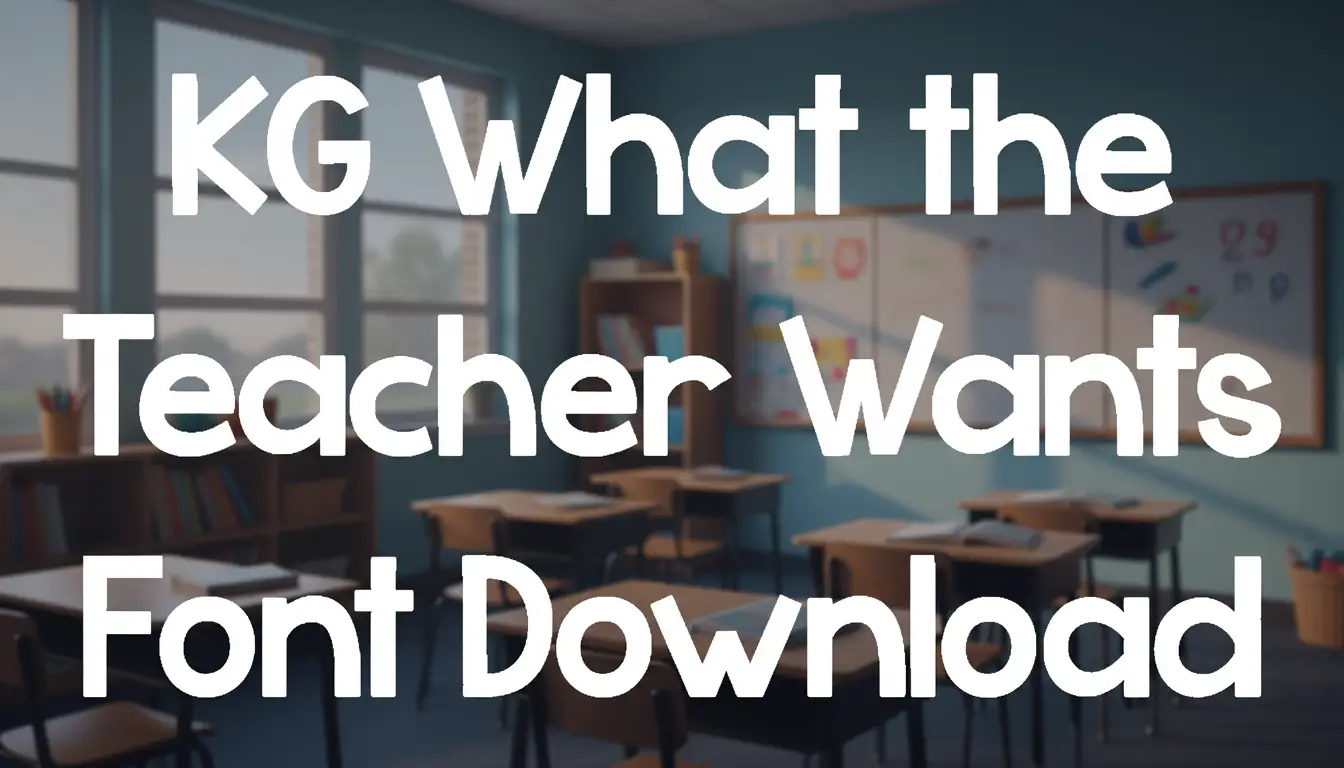
KG What the Teacher Wants Font
KG What the Teacher Wants Font Preview
KG What the Teacher Wants
KG What the Teacher Wants is a fancy font made by Kimberly Geswein. Bold and full of character, it's built to stand out rather than blend in. You can download it for free and test it with your own words in the preview above.
- Designer: Kimberly Geswein
What You Can Type With KG What the Teacher Wants
KG What the Teacher Wants covers the full alphabet in upper and lowercase, plus all ten numbers, so you can set names, dates and prices without switching fonts. Everyday marks like &, !, ? and @ are there too. Thanks to its accented letters, it also works for Spanish, French, German, Portuguese and Italian, not just English.
Where KG What the Teacher Wants Works Best
KG What the Teacher Wants is a natural fit for posters, logos and eye-catching headlines. Use it for one standout word or headline and let simpler fonts handle the rest.
Does KG What the Teacher Wants support accented letters?
Yes. KG What the Teacher Wants includes the accented letters needed for Spanish, French, German, Portuguese and Italian, so it works for more than just English.